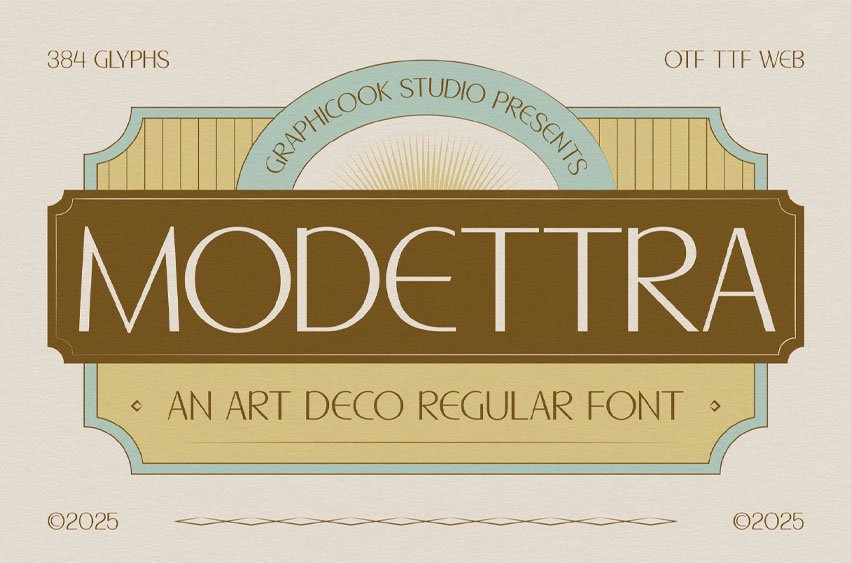
Modettra Font is an Art Deco-inspired font featuring sharp angles and precise lines. It exudes elegance and is ideal for formal, professional, and high-end design projects.
It is perfect for headlines, logotypes, magazines, packaging, quotes, movies, games, cover albums, book covers, and flyers. It’s a perfect solution for creating eye-catching designs that stand out in any context.